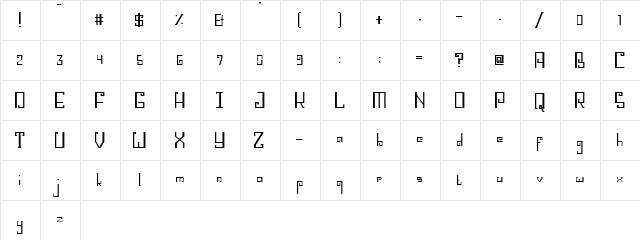
Buna Insana Regular
| Designer | Sonia Adriana & Shierly Caroline |
Design Context for Buna Insana Typeface
Buna Insana takes a measured approach to typography — its balanced proportions and neutral character make it a reliable workhorse for both digital and print work.